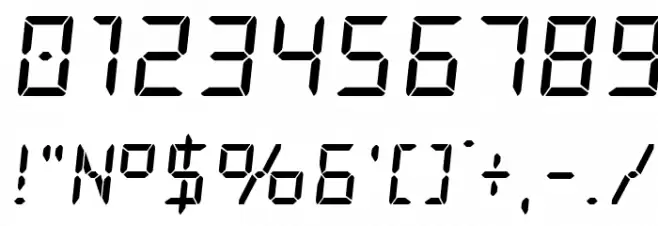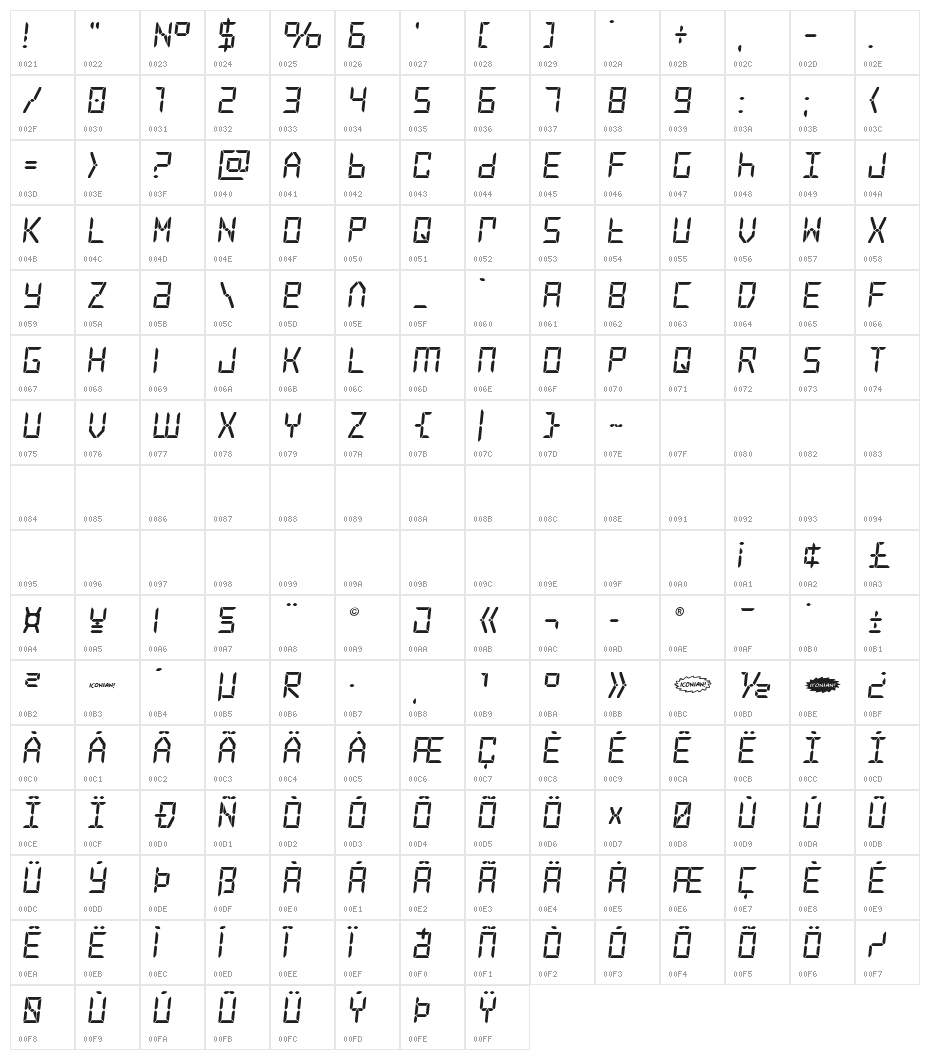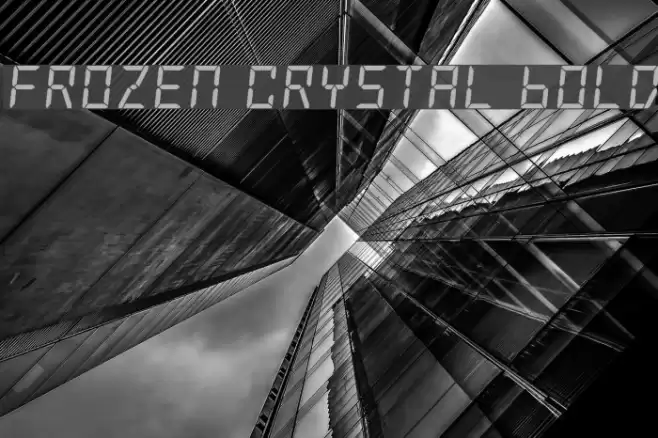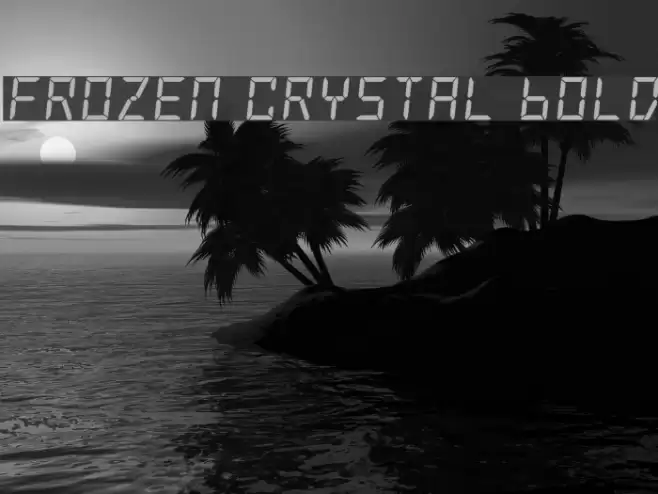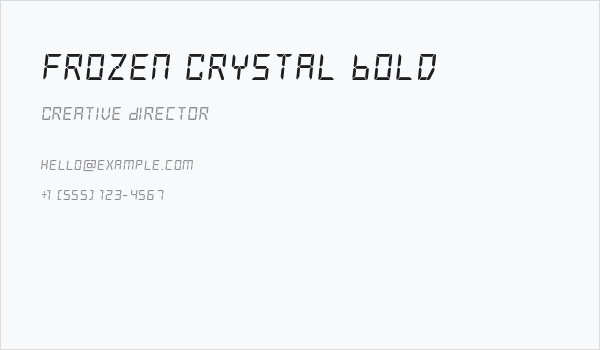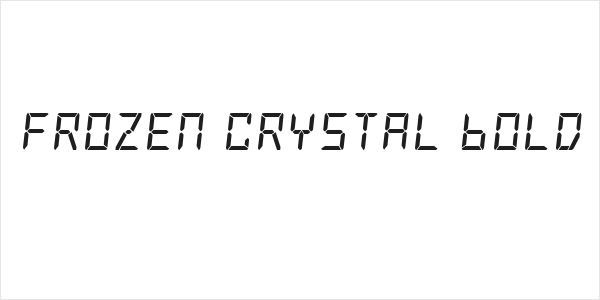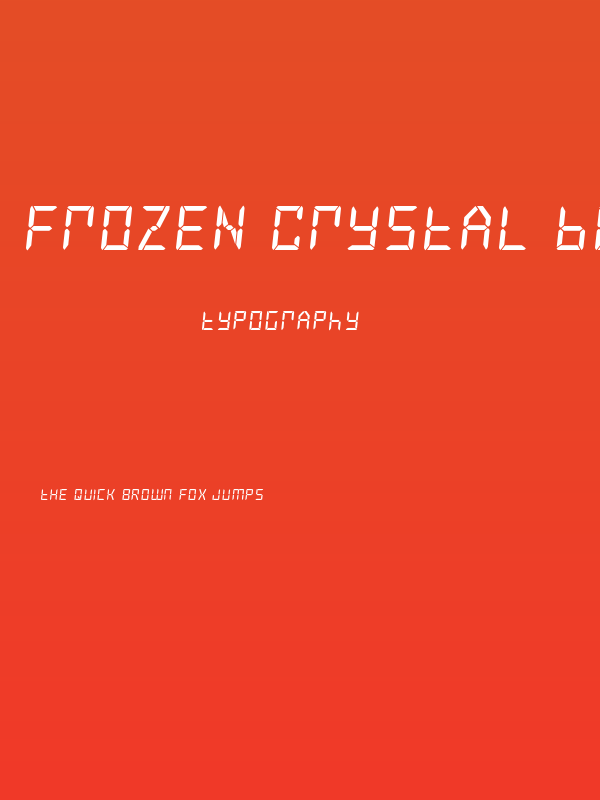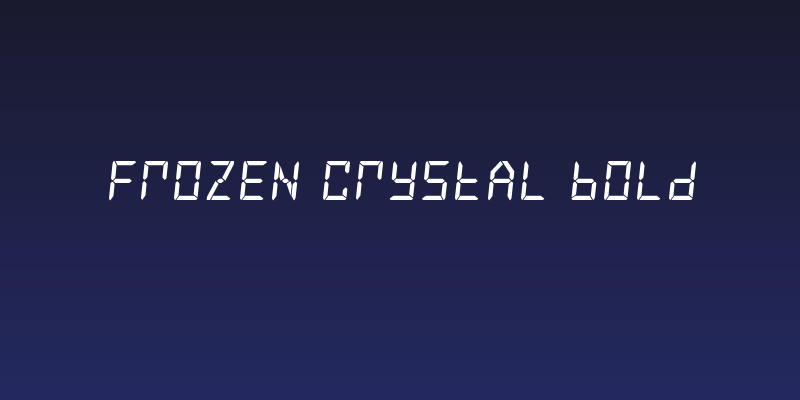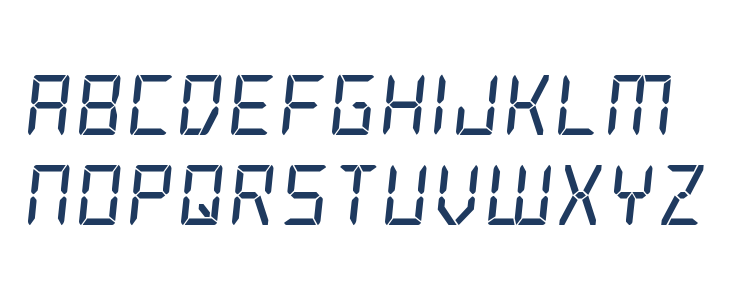
Frozen Crystal Bold Font
Frozen Crystal Bold Description
This font features a geometric, digital-inspired design reminiscent of LED or LCD displays. Each character is constructed with angular, segmented lines that create a futuristic and tech-savvy appearance. The uppercase and lowercase letters maintain a consistent style, with sharp edges and a uniform structure. The numerals and special characters follow the same segmented pattern, ensuring a cohesive look across all glyphs. This font's unique style makes it ideal for projects that require a modern, digital aesthetic.
| Use Case | Headlines, Logos, Digital displays |
| Proposed Projects | Ideal for digital displays, tech branding, futuristic designs, and sci-fi themed projects. |